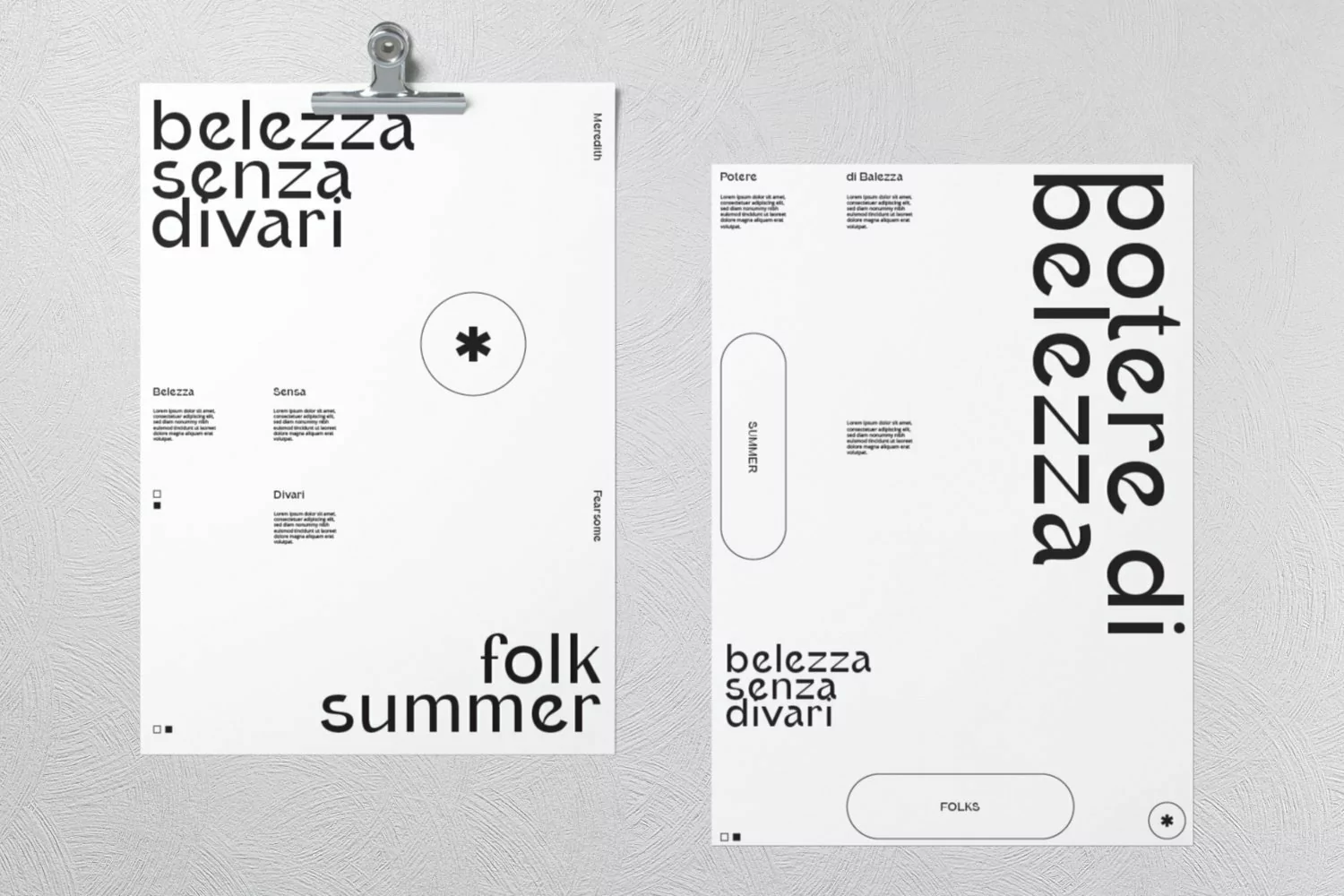
Web Font suitable for logotype, brand, packaging, quotes, music poster, t-shirt, cover book and more custom design. The features uppercase, lowercase, numeral, punctuation & symbol, multilingual support.
Lizbeth-Regular